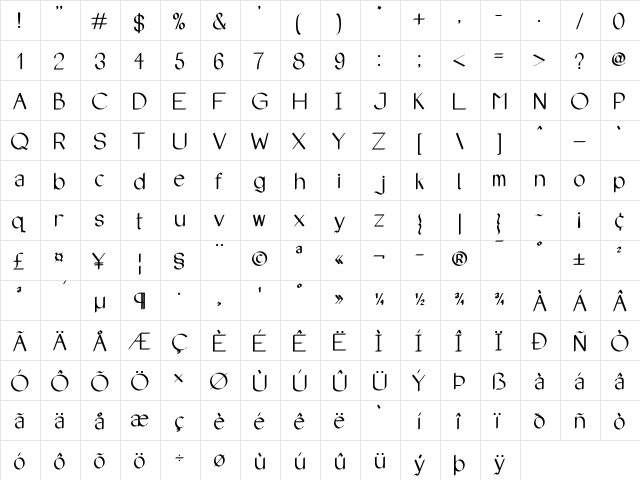
ElsterSans Regular
Design Context for ElsterSans Typeface
ElsterSans is a composed and adaptable typeface that performs quietly and consistently across a wide range of design contexts.
Pro Tip: Pair ElsterSans with a font of contrasting weight or personality to build a more expressive typographic hierarchy.